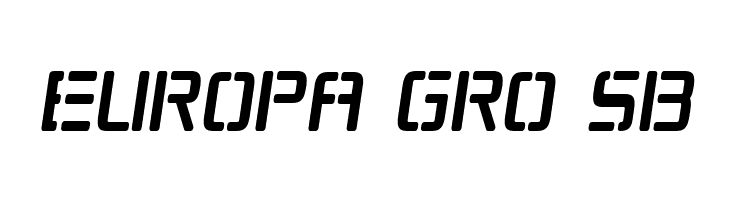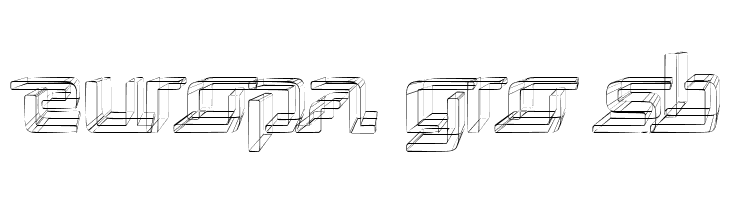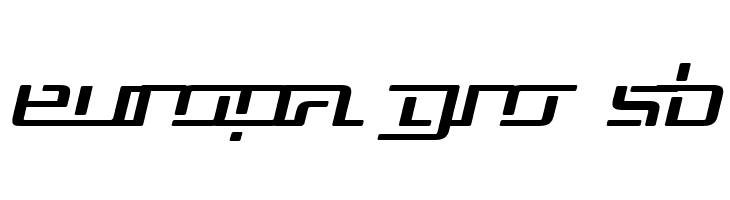
A modern, condensed italic font with a sleek, geometric design.
A futuristic, geometric font with bold, angular lines and a modern aesthetic.
A modern, italicized font with a sleek, futuristic style and consistent stroke thickness.
A modern, geometric italic font with a dynamic and futuristic style.
A sketch-style, three-dimensional font with geometric and artistic characteristics.
A modern, italic font with geometric precision and a dynamic, futuristic style.
A modern, geometric font with a futuristic and sleek design.
A futuristic, geometric font with consistent stroke width and sharp edges.
A futuristic, italicized font with angular, geometric characters and a sleek design.
A modern, geometric font with a futuristic and digital aesthetic.